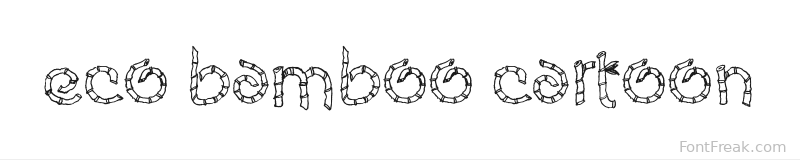
Eco Bamboo Cartoon
About Eco Bamboo Cartoon
Eco Bamboo Cartoon, designed by Galdino Otten Fonts, is a delightful decorative typeface that combines playful aesthetics with an eco-friendly theme. This font is characterized by its unique bamboo-inspired design, which showcases rounded, organic shapes that evoke a sense of nature and sustainability. The stroke weight is moderate, enhancing readability while maintaining a fun, cartoon-like quality. The letters are well-spaced, allowing for easy legibility, making it suitable for a variety of applications.
This font shines in specific use cases such as children's book covers, eco-friendly product packaging, restaurant menus with a natural theme, and vibrant event invitations. Its whimsical design makes it an excellent choice for graphic designers looking to create eye-catching visuals that resonate with environmentally conscious audiences. Small business owners aiming to convey a playful and approachable brand identity will also find this typeface appealing. Content creators can utilize Eco Bamboo Cartoon in social media graphics, blogs, and newsletters to add a touch of charm and creativity.
What sets Eco Bamboo Cartoon apart is its ability to convey a message of sustainability through its design. The font not only captures attention with its playful style but also aligns with contemporary values surrounding environmental consciousness. This combination makes it a standout choice for anyone looking to make a statement while remaining mindful of their ecological footprint.